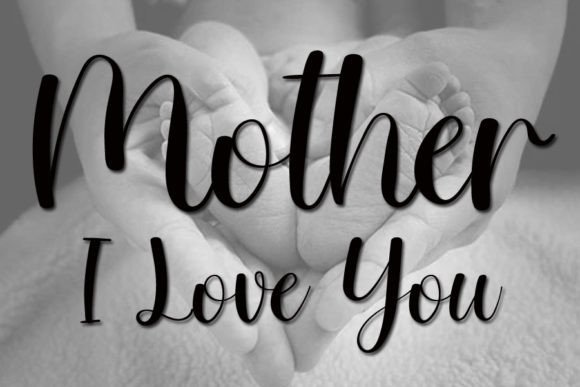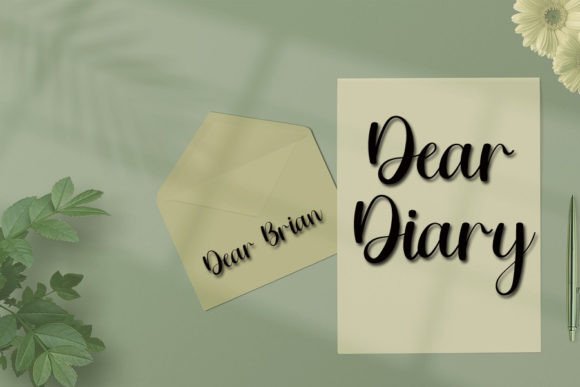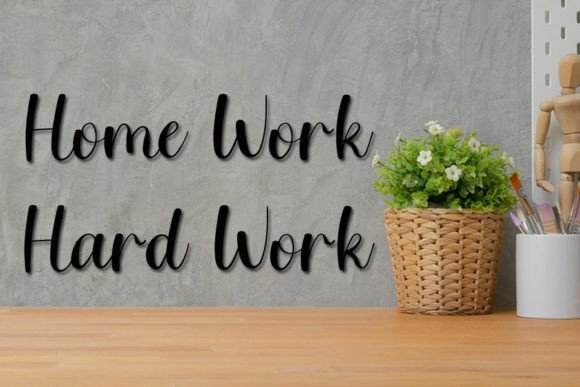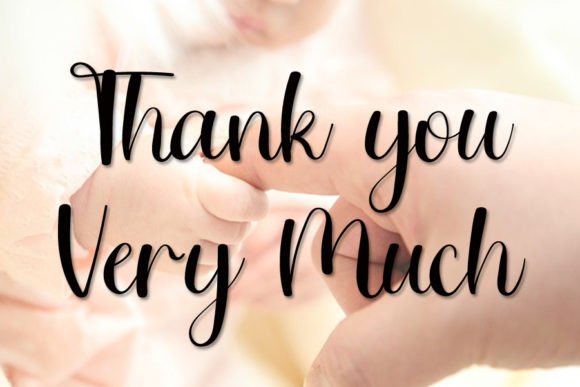
Daddy Font
About Daddy Font
Daddy is a delicate, elegant, and flowing handwritten font. It has beautiful and well-balanced characters and as a result, it matches a wide pool of designs.